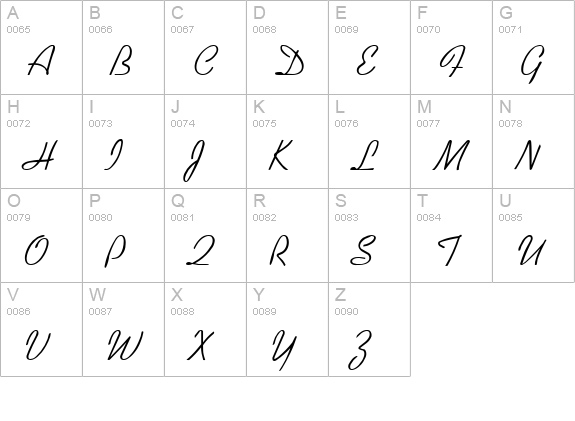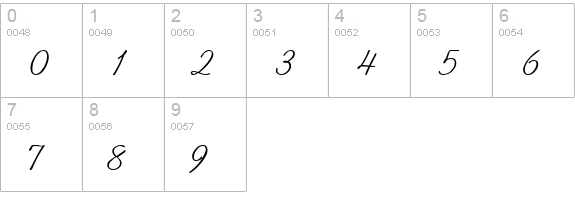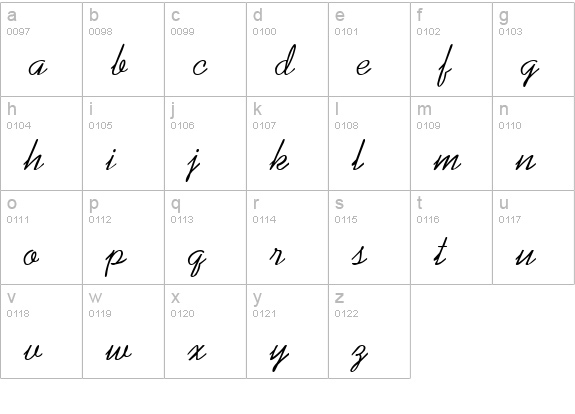
Septime Font Details
Septime font is a modern and elegant typeface that exudes sophistication and style. With its clean lines and delicate curves, Septime is perfect for a wide range of design projects, from branding to editorial design. This versatile font is suitable for both headlines and body text, making it a great choice for any creative endeavor. What sets Septime font apart is not only its timeless design, but also the fact that it is completely free to download. Available at FontsMarket.com, designers and creatives can easily access this high-quality font without any cost. Whether you're working on a personal project or a client's design, Septime font is a reliable and beautiful choice that won't break the bank. Download Septime font today from FontsMarket.com and add a touch of elegance to your designs with this stylish and versatile typeface.